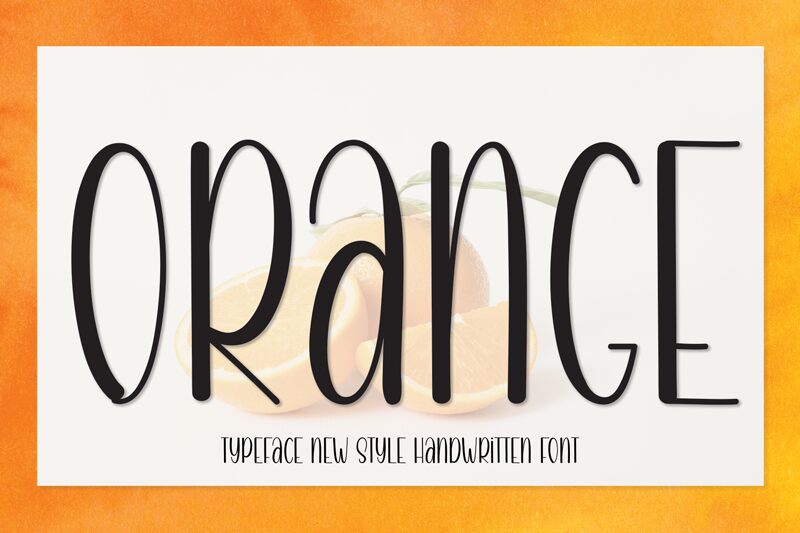
ORANGE
Orange, crafted by the talented Scratchones, is a handwritten font that speaks to the heart of creativity and personal flair. With its semi-light weight and extra-condensed width, Orange offers a sleek, modern twist on the classic handwritten aesthetic. Its clean lines and unassuming elegance make it an ideal choice for designers seeking to infuse warmth and character into their projects without sacrificing sophistication.
The charm of Orange lies in its subtle balance between casual spontaneity and meticulous design—perfect for everything from heartfelt invitations to stylish branding. It stands out with an individualistic style that is both approachable and distinctive. As a versatile font, it's well-suited for print media, digital interfaces, and artistic compositions that require a touch of human touch.
Whether you're crafting logos or laying out web pages, Orange beckons with its inviting contours and engaging presence—a testament to Scratchones' vision of blending handcrafted sensibilities with contemporary design needs.
The charm of Orange lies in its subtle balance between casual spontaneity and meticulous design—perfect for everything from heartfelt invitations to stylish branding. It stands out with an individualistic style that is both approachable and distinctive. As a versatile font, it's well-suited for print media, digital interfaces, and artistic compositions that require a touch of human touch.
Whether you're crafting logos or laying out web pages, Orange beckons with its inviting contours and engaging presence—a testament to Scratchones' vision of blending handcrafted sensibilities with contemporary design needs.